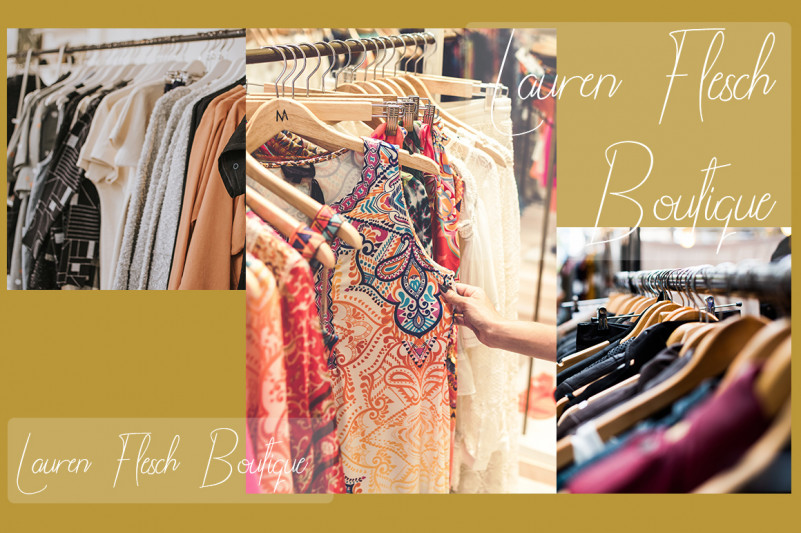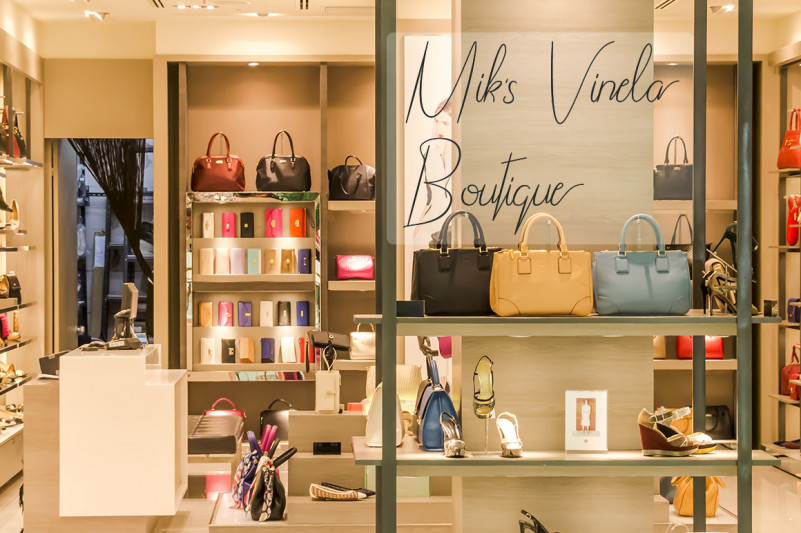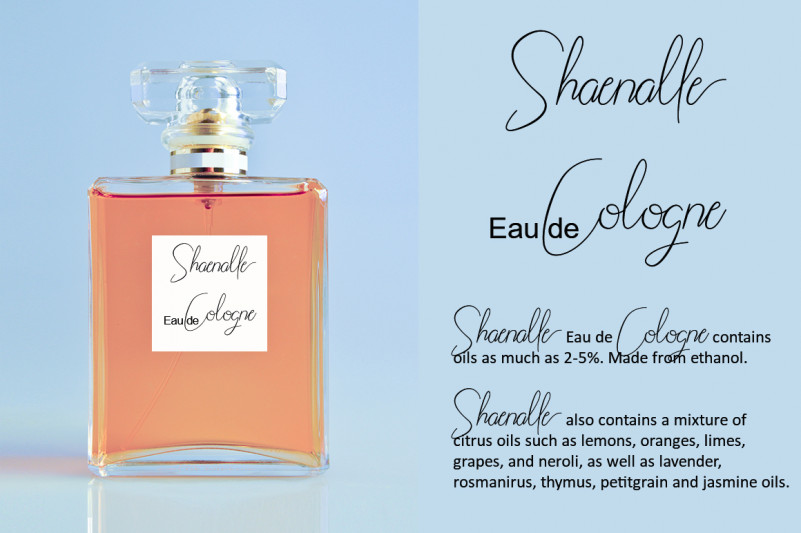
Shaenalle Signature Font
Shaenalle Font is signature script, with sweet touches and beautiful curves on each letter. This font is great for your next creative project.